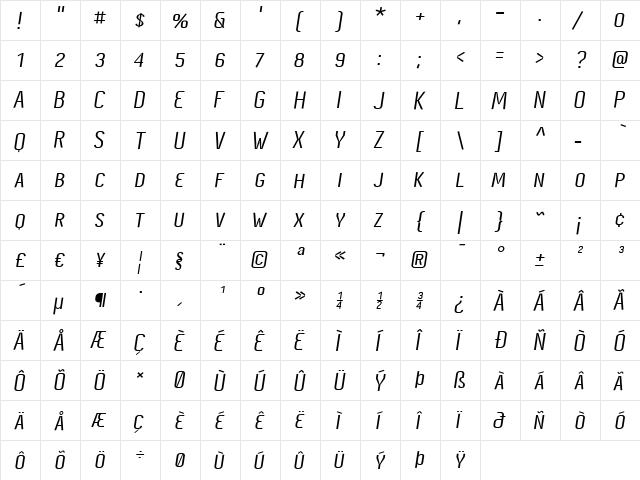
Cynapse Pro SC Bold Italic Font Preview
| Foundry | Neil Summerour/Positype |
| Designer | Neil Summerour/Positype |
Design Context for Cynapse Pro SC Typeface
Cynapse Pro SC offers clean, dependable letterforms without strong stylistic allegiance, making it a practical choice for designers who need flexibility. Its italic angle brings a sense of urgency and motion to the letterforms. The heavy weight commands attention and anchors typographic hierarchies.